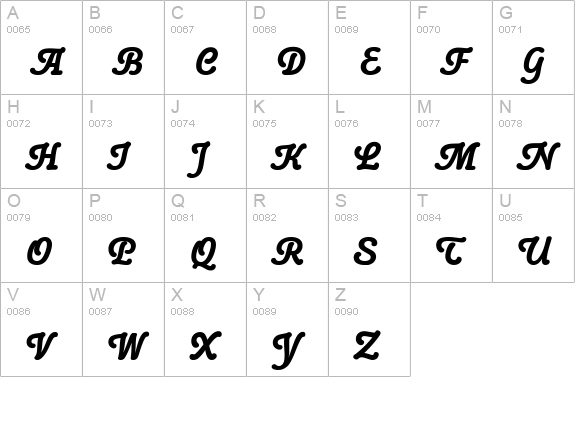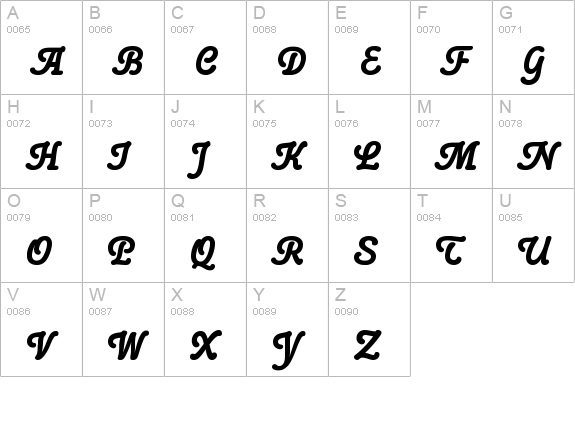
Poppl College (R) 2 Bold is a modern and bold font that exudes confidence and professionalism. With its sleek lines and strong presence, this font is perfect for making a bold statement in your design projects. Whether you are creating posters, logos, or headlines, Poppl College (R) 2 Bold will make your text stand out and command attention. What's even better is that Poppl College (R) 2 Bold is available for free download at FontsMarket.com. That's right, you can enhance your projects with this striking font without any cost. So why wait? Download Poppl College (R) 2 Bold now and take your designs to the next level with this impressive typeface.